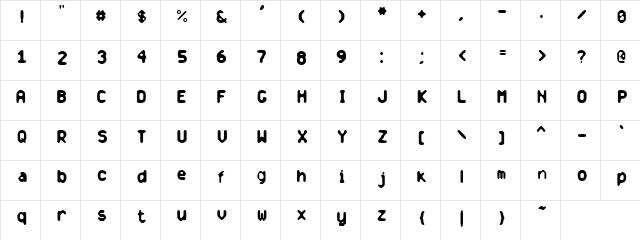
Banausia Regular
| Foundry | Liquid Nite Productions, formerly Zogoz Design |
| Designer | Andrew Hungerford |
Design Context for Banausia Typeface
Banausia is a composed and adaptable typeface that performs quietly and consistently across a wide range of design contexts.